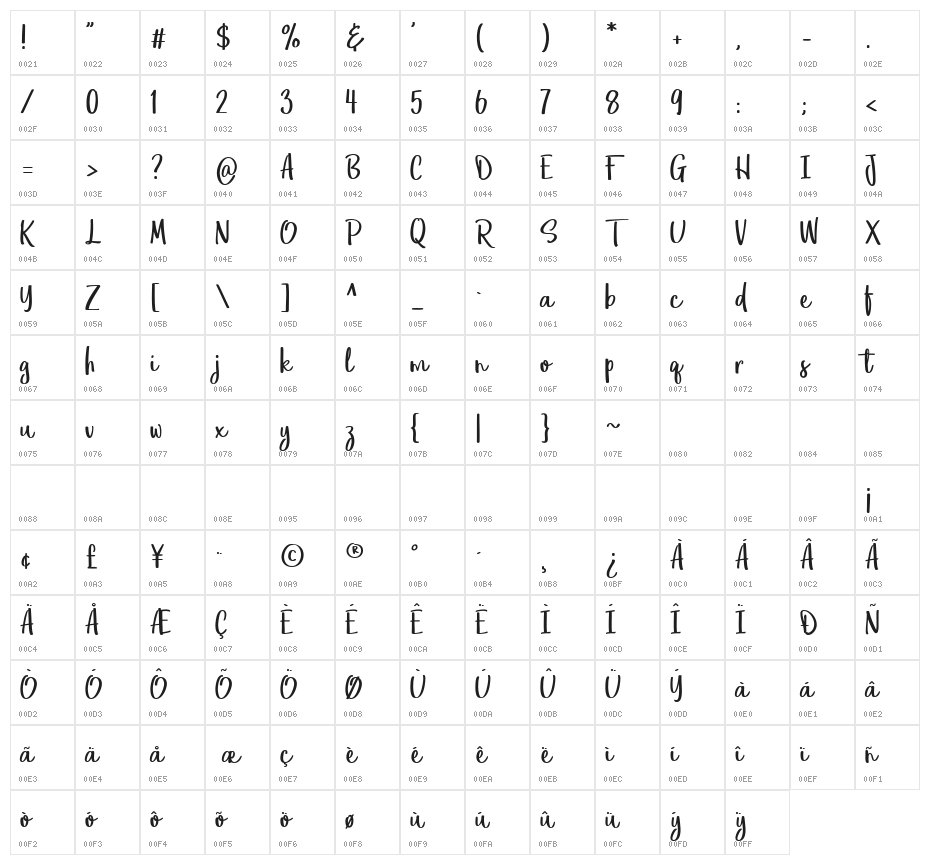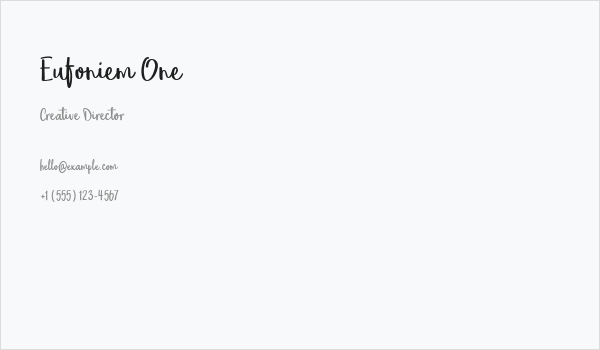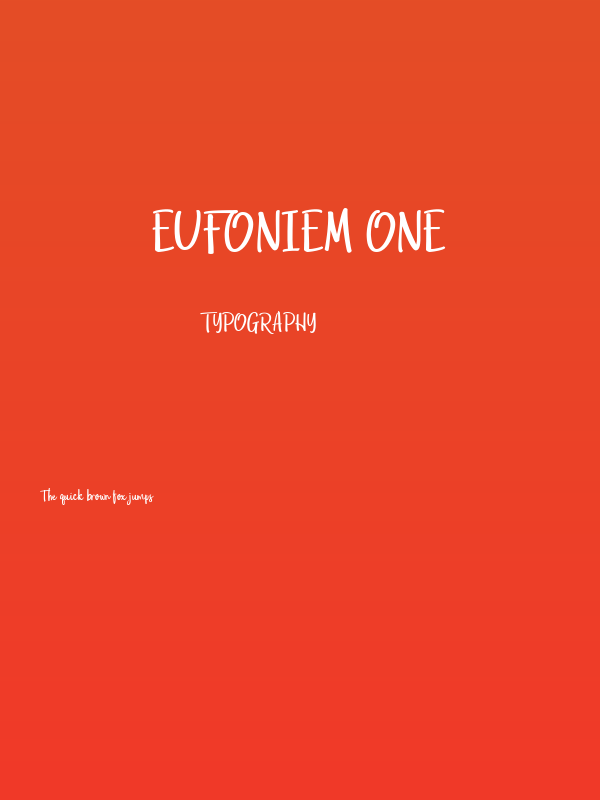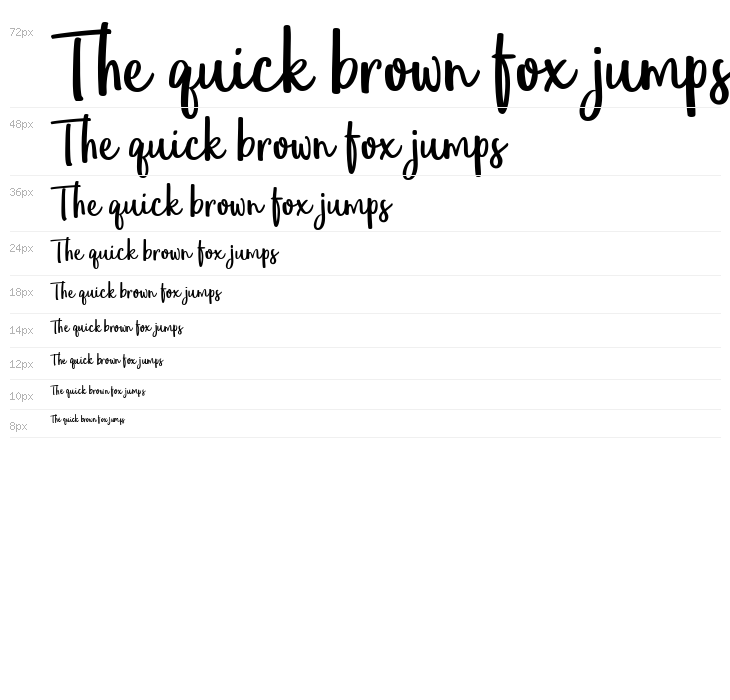
Eufoniem One Font
Eufoniem One Description
This font features a playful and energetic handwritten style, characterized by its bold and flowing letterforms. The uppercase letters are tall and slightly narrow, with a consistent stroke width that gives them a strong presence. The lowercase letters maintain a similar style, with a casual and friendly appearance. The numbers are clear and legible, matching the overall aesthetic of the font. Special characters are included, adding versatility for various design needs. This font's lively and informal style makes it suitable for projects that require a personal touch.
| Proposed Projects | Ideal for greeting cards, invitations, posters, and social media graphics. |